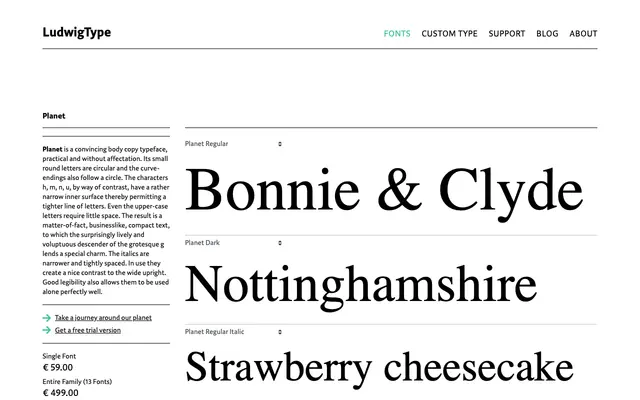
Planet
A text serif from Ludwig with six weights, small caps and italics, suited to extended reading across editorial and book contexts.
Planet covers six weights from Light to the unusually named Dark, each accompanied by italics across the lighter to bold range, with small caps available for Light, Regular and Medium. The inclusion of small caps points to a typeface intended for sustained reading, where typographic hierarchy matters. It reads as a clean, professionally considered text serif without strong stylistic idiosyncrasy.
The family's structure, with small caps, multiple weights and italics, points to a classical text serif tradition rooted in transitional design principles, balancing rational stroke contrast with humanist warmth.